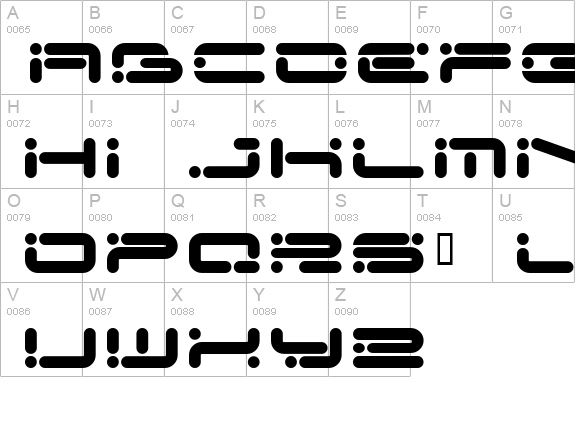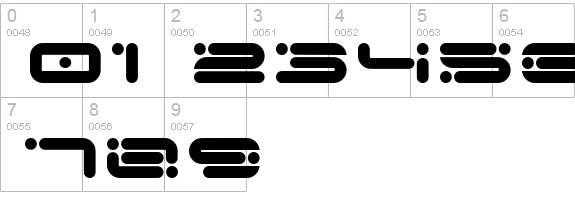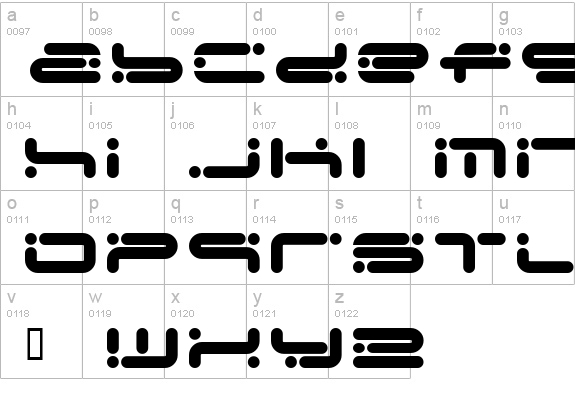
Chicory Font Details
Chicory font is a stylish and elegant typeface that exudes sophistication and class. With its sleek lines and modern look, Chicory font is perfect for adding a touch of refinement to any design project. Whether you're creating a logo, poster, or website, this font will elevate your work to the next level. The best part is that Chicory font is completely free to download at FontsMarket.com. You can access this stunning font at no cost and use it in your projects without any restrictions. Don't miss out on the opportunity to enhance your designs with the beauty of Chicory font - download it today and elevate your creativity!